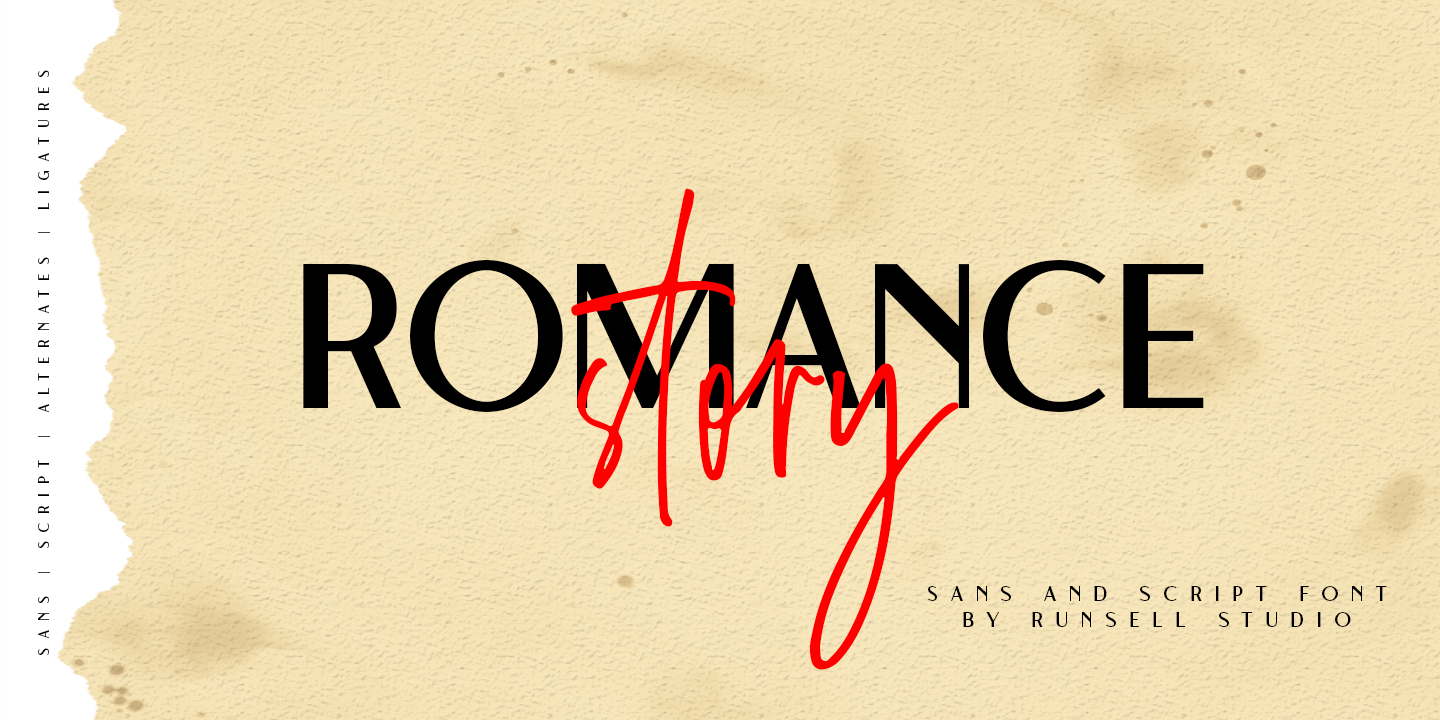
The Romance Story Font is an excellent choice for designs that aim for a heartfelt, elegant, and distinctly whimsical handwritten or script aesthetic. Imagine it gracing the covers of charming romance novels, adding a touch of sophisticated allure to wedding invitations, or lending an ethereal feel to bespoke jewelry branding. It's also perfectly suited for personalized stationery, heartfelt greeting cards, sweet social media announcements, and any project where you want to convey a sense of tenderness, intimacy, and a touch of enchanting beauty. Its flowing lines, delicate flourishes, and unique character make it ideal for conveying sincerity and a dreamlike, artistic flair.
What makes the Romance Story Font so exciting is its ability to instantly infuse a design with a feeling of warmth, passion, and gentle emotion. It often features graceful ligatures, stylistic alternates, and smooth connections that mimic skilled hand-lettering, making it feel both personal and polished. This font has a tender and inviting personality that can instantly elevate your design, making it feel both intimate and supremely stylish. It's designed to capture attention with its distinctive elegance, ensuring your message is not just seen, but felt with a sense of refined artistry.
The Romance Story Font family typically might focus on a few key weights to best maintain its distinctive character, with a strong emphasis on stylistic sets, swashes, and a wide array of ligatures crucial for creating authentic and varied script effects. While it might not always have an an extensive range of weights, its strength lies in its rich OpenType features that allow for highly customized and decorative typographical compositions. These variations empower designers to create a truly captivating and memorable display, ensuring the Romance Story Font Free Download can adapt to a wide array of projects while maintaining its signature, romantic charm.